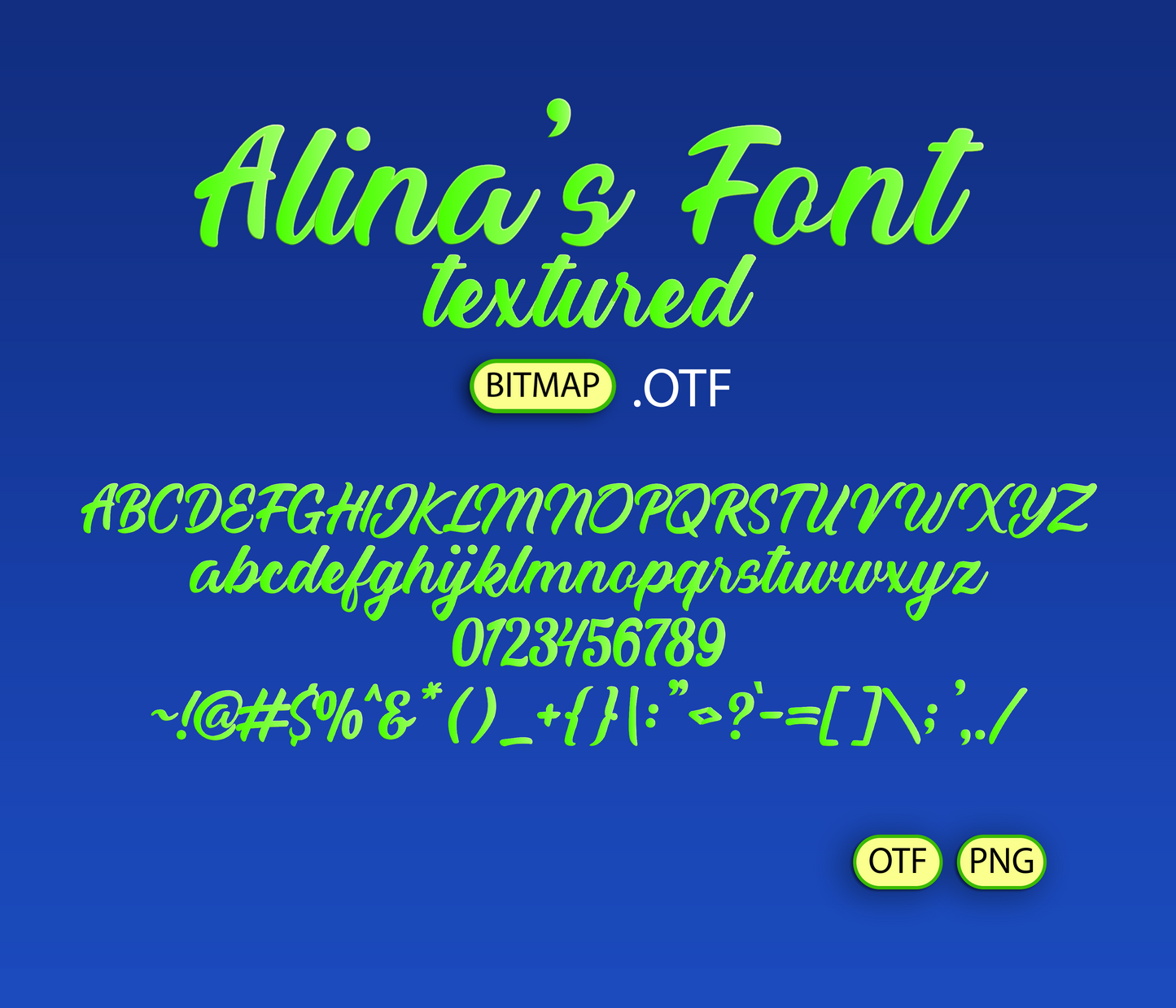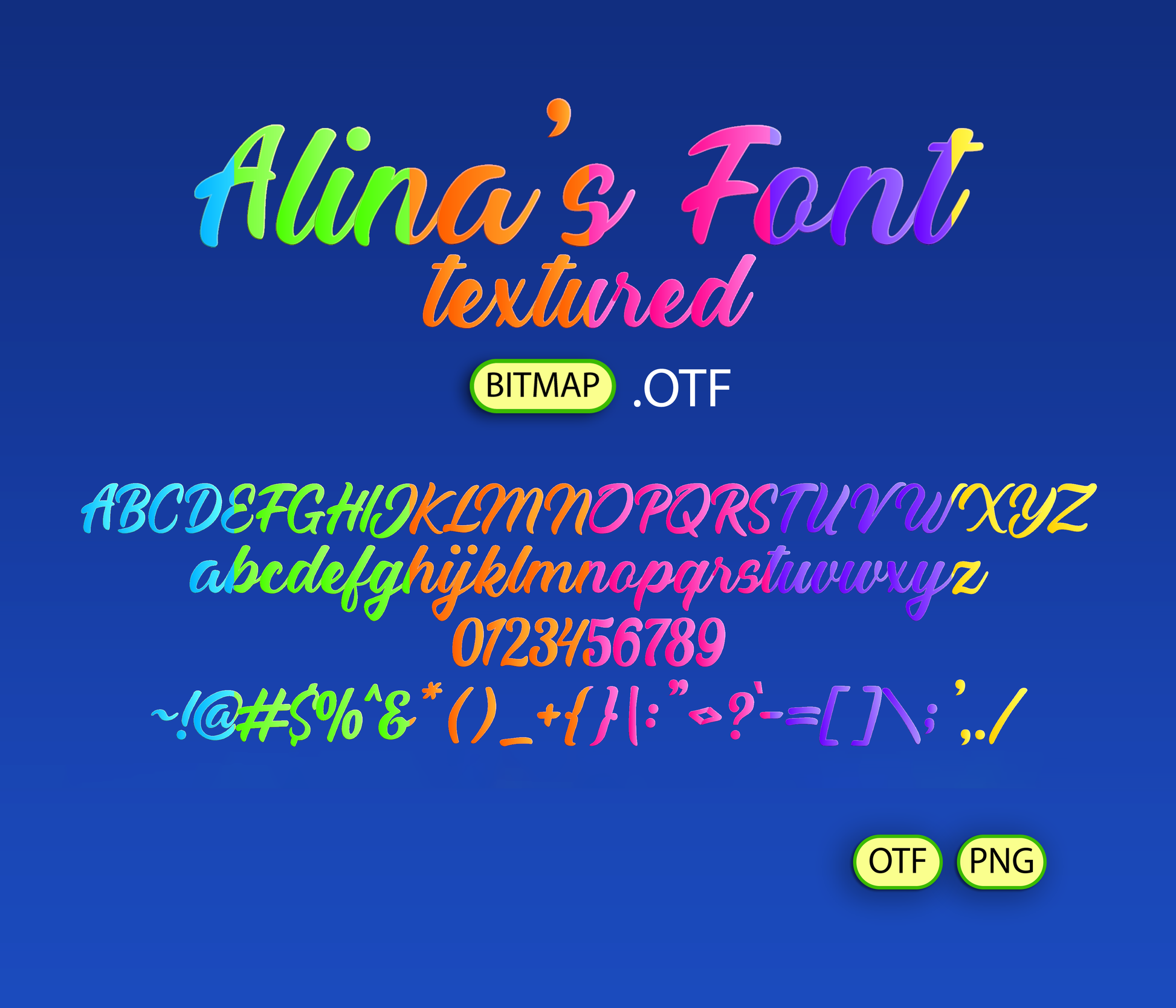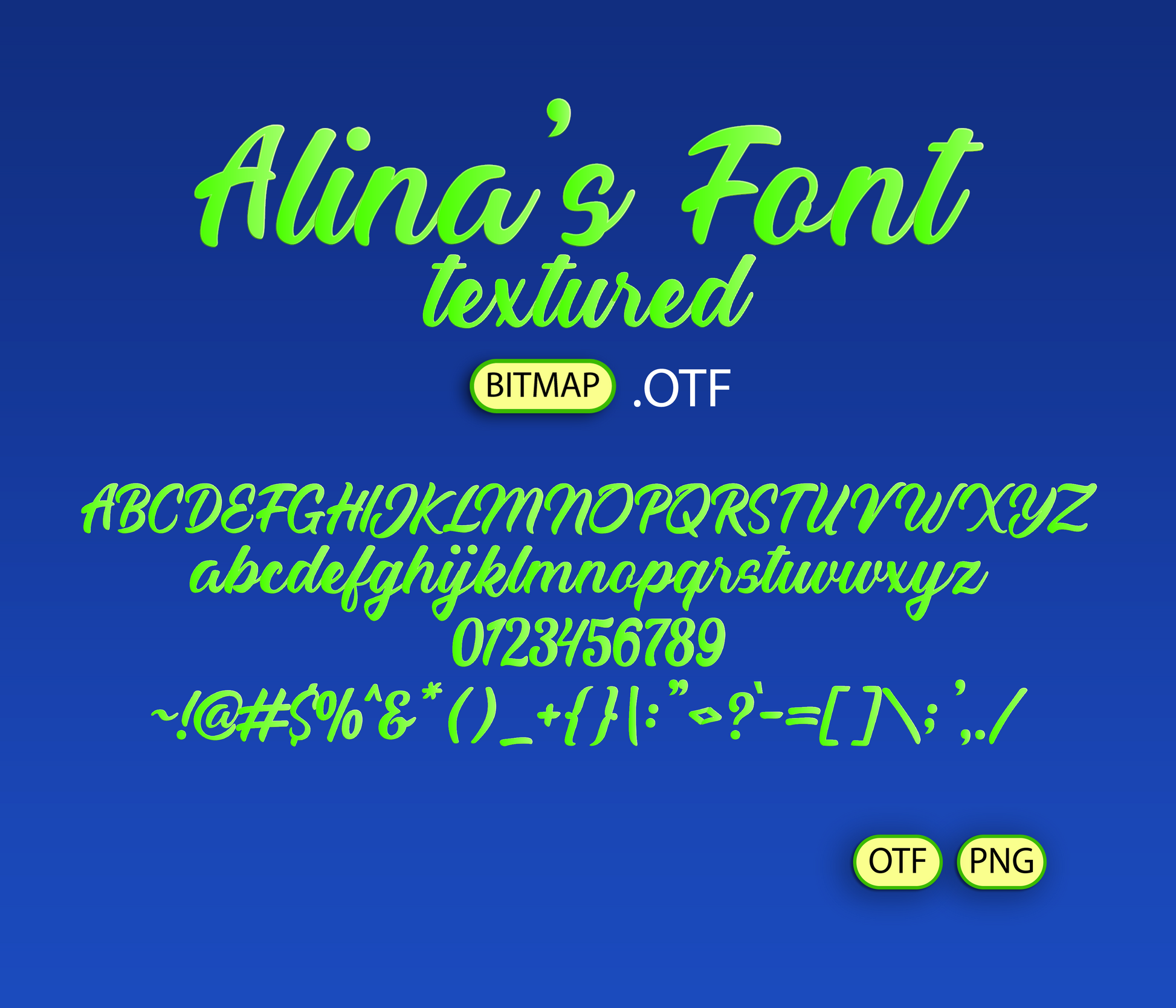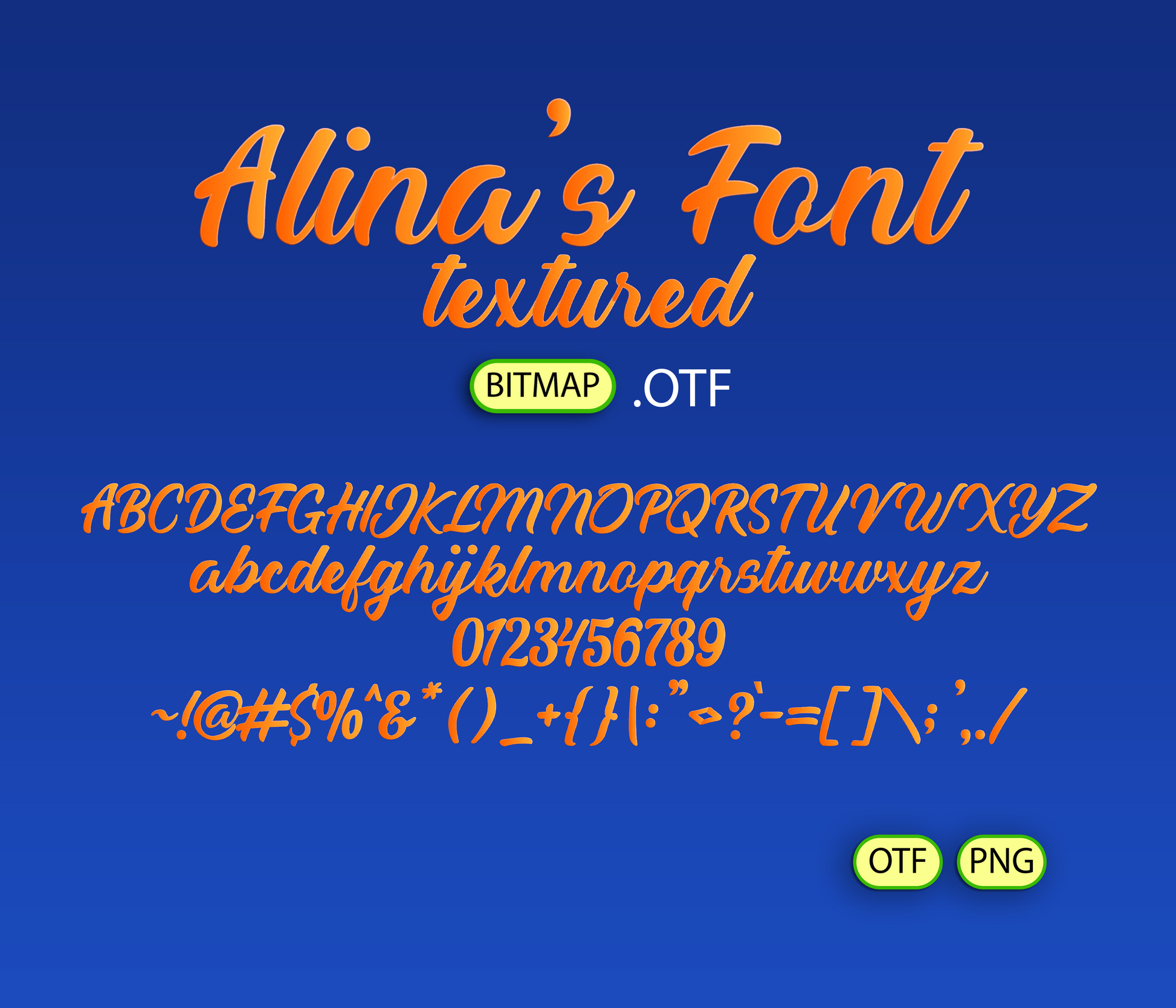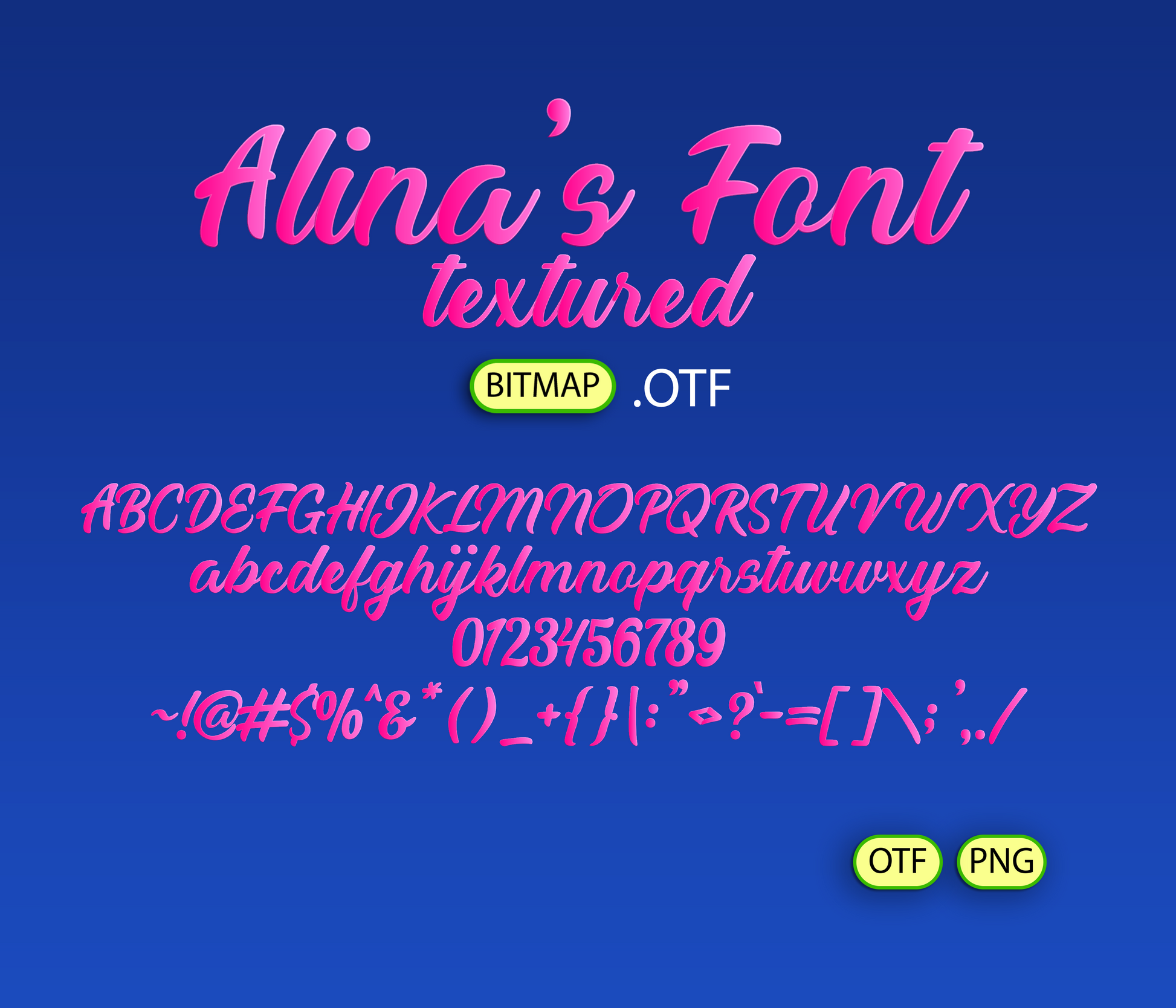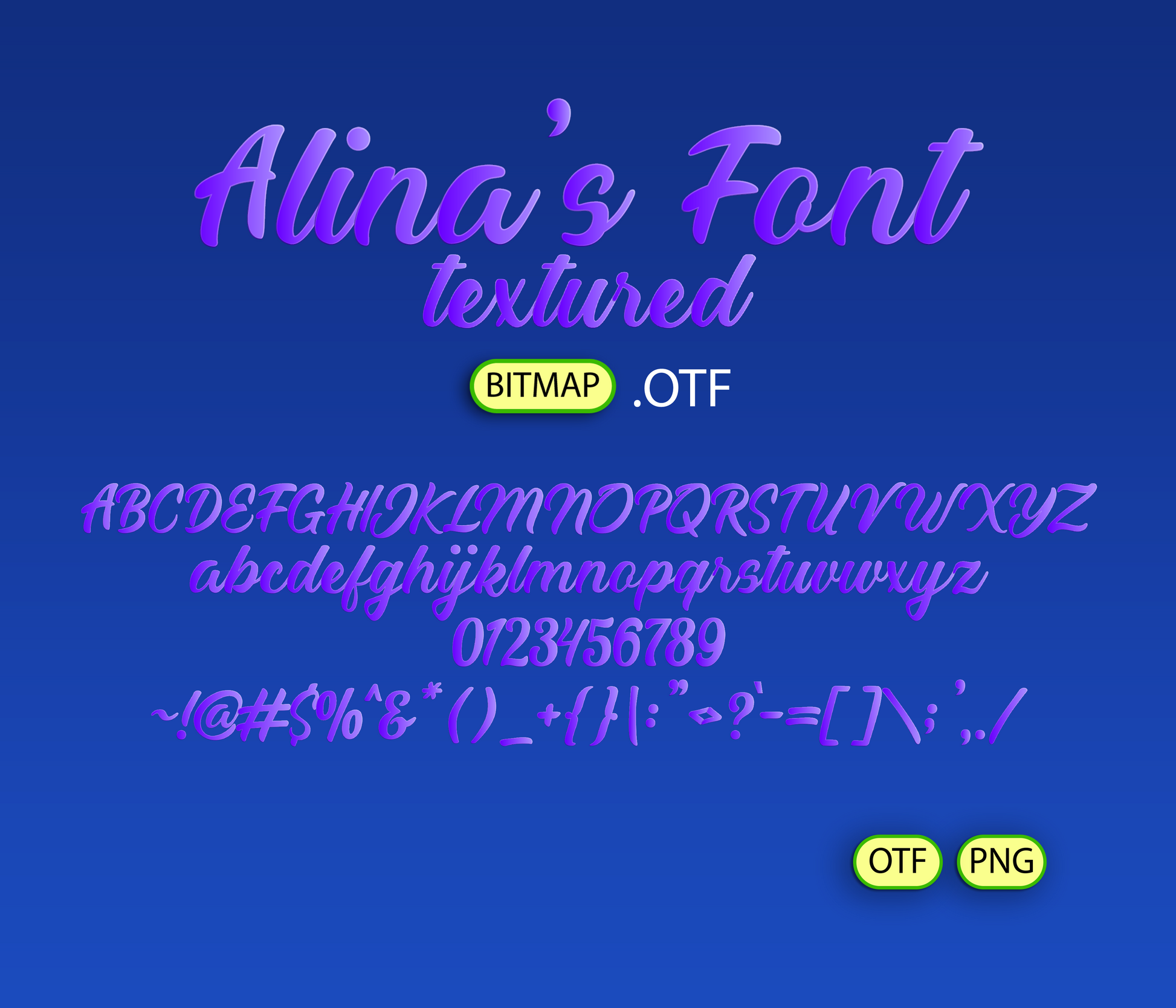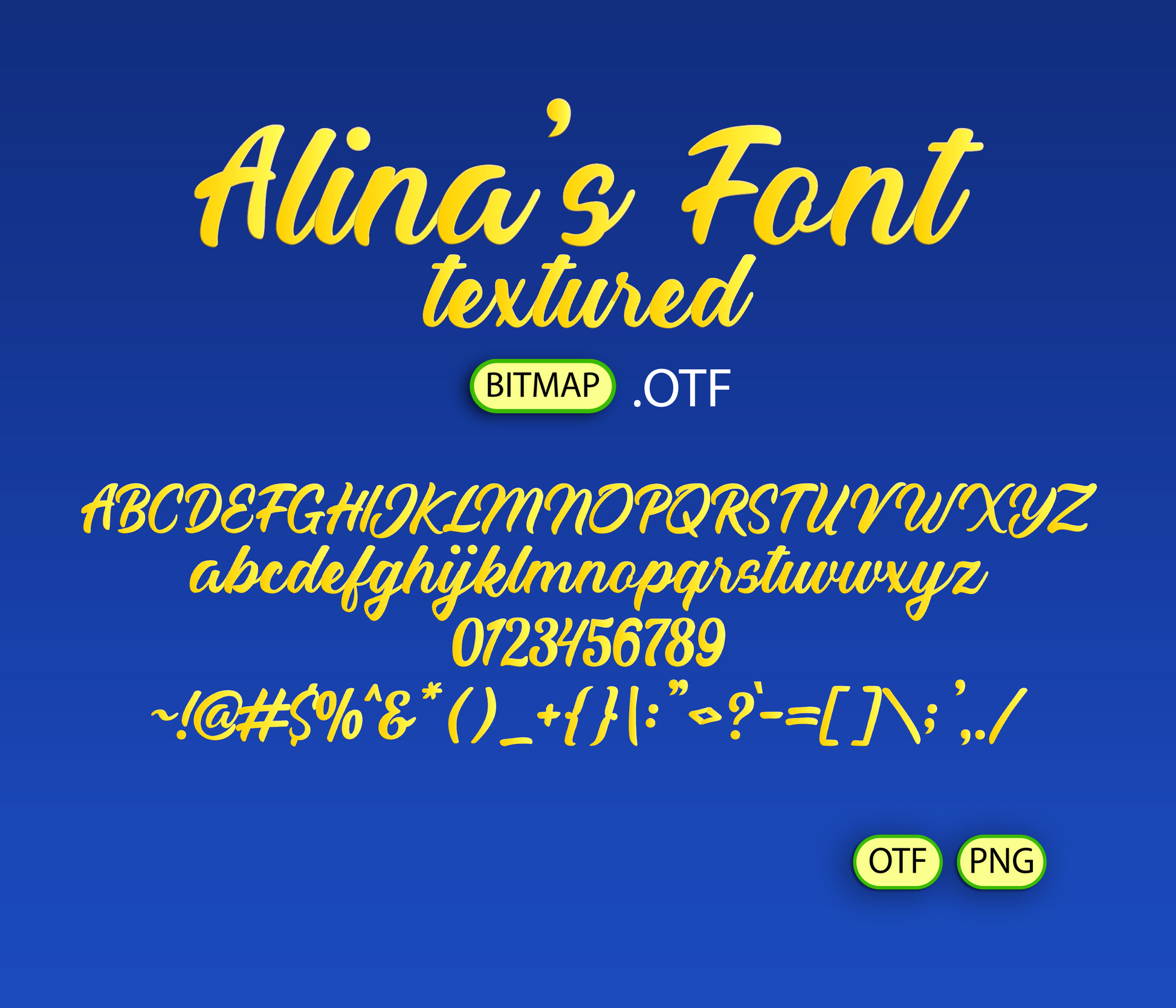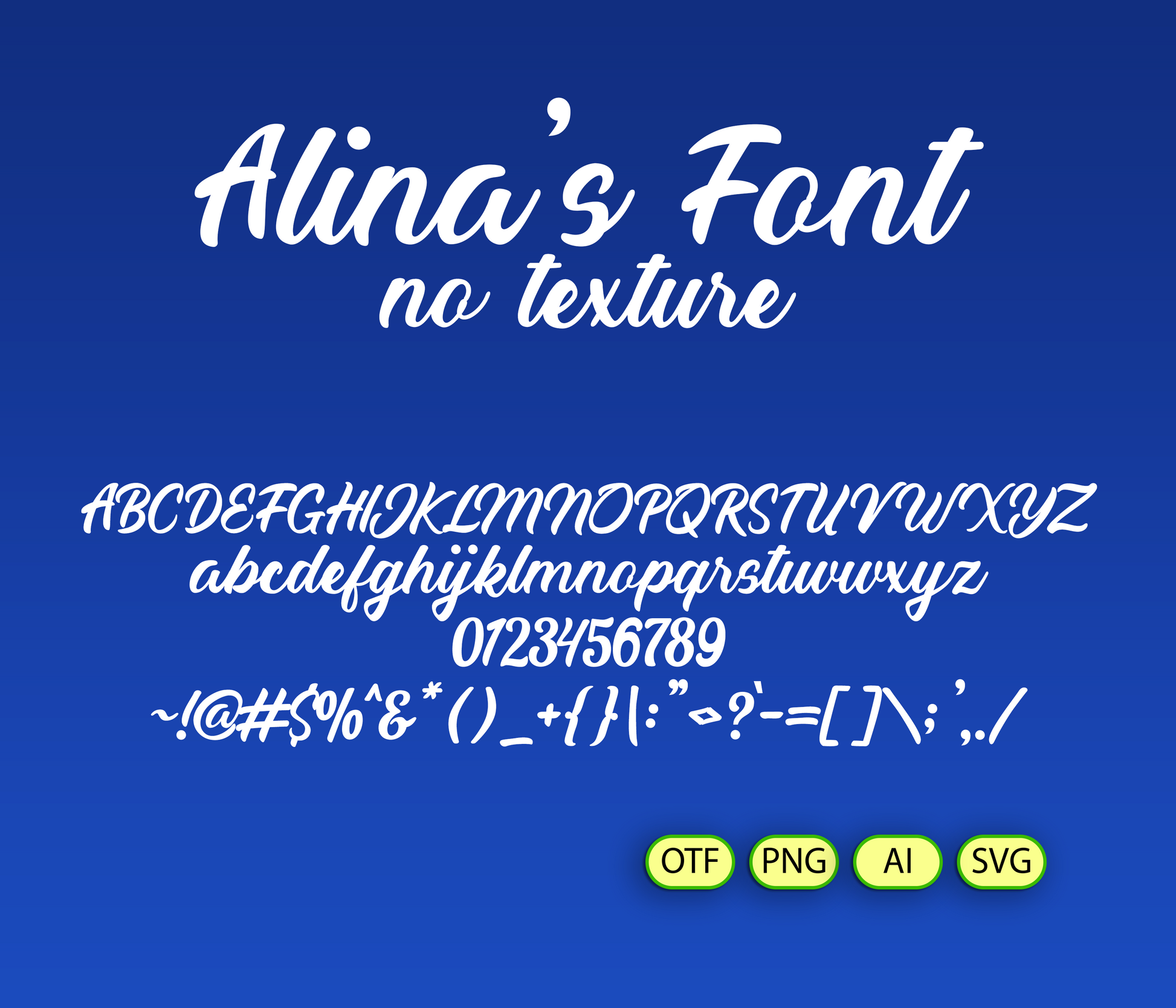
Rainbow Fantasy Font Textured Bundle
Step into the vibrant world of colorful creatures with our Rainbow Fantasy font, capturing the essence of neon-bright animals and magical adventures. Perfect for color enthusiasts, whimsical art lovers, event organizers, and designers, this font brings the dazzling, technicolor spirit of 90s nostalgia to your projects. Create eye-catching materials, merchandise, or digital content with the radiant energy of prismatic wildlife and fantastical scenes.
Our Rainbow Fantasy font features neon-bright, psychedelic lines and vivid characters reflecting the world of fluorescent animal art. Ideal for:
- Event Promotions: Create kaleidoscopic invites, posters, and banners for retro parties, youth celebrations, and themed gatherings that capture the spirit of day-glo animal artistry
- Merchandise Design: Perfect for t-shirts, posters, and accessories that showcase the unmistakably vibrant aesthetic of technicolor creatures
- Digital Media: Enhance websites, blogs, and social media with electric headers and graphics that express the joy of rainbow-hued illustrations
- Nostalgic Content: Add authentic flair to fan works, 90s-inspired projects, and creative designs related to neon wildlife collections
- Personal Projects: Bring technicolor brilliance to scrapbooking, DIY crafts, and home decor inspired by the world of prismatic animal art
Our font pays tribute to the iconic world of vibrant 90s animal artistry, empowering your designs with its colorful and energetic spirit. Whether crafting promotional materials, designing merchandise, or adding a playful touch to personal projects, this font communicates the dazzling essence of neon wildlife illustrations. Ready to inject rainbow brilliance into your creations? This font is your key to eye-catching, impactful design.